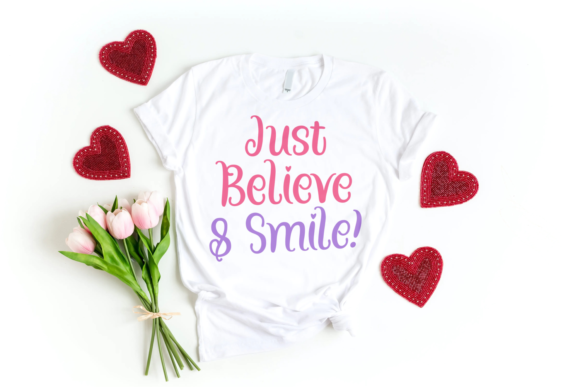
About Hello Sweet Girls Font
Hello Sweet Girls is a delightful and charming handwritten font that radiates warmth, playfulness, and a touch of romance. With its versatile and flexible nature, this font is a perfect choice to bring a joyful and artistic vibe to your various design projects.
The font’s rounded and friendly letterforms embody a sense of approachability and cheerfulness. Its smooth curves and balanced proportions give it a balanced and harmonious appearance, making it suitable for a wide range of creative applications.
Hello Sweet Girls’ inherent sweetness and versatility make it an ideal candidate for a variety of design projects. Whether you’re crafting greeting cards, designing invitations, creating social media graphics, or working on any other creative endeavor, this font will infuse your designs with a sense of joy and whimsy.
The font’s flexibility allows you to explore a multitude of design possibilities. From bold and vibrant to subtle and elegant, Hello Sweet Girls can adapt to different visual styles and themes. Its ability to convey both a playful and romantic mood opens up opportunities for experimenting with various typographic treatments and color palettes.
Hello Sweet Girls’ handwritten charm can add a personalized and authentic touch to your projects. The font’s inherent joviality and warmth make it particularly well-suited for designs targeted at a youthful or fun-loving audience. Its ability to evoke emotions and create a connection with viewers adds depth and character to your creations.
The rounded and smooth letterforms of Hello Sweet Girls contribute to its readability and legibility, ensuring that your message comes across clearly. Whether used for headlines, captions, or body text, the font maintains its inviting and cheerful demeanor, enhancing the overall visual experience.
Incorporating Hello Sweet Girls into your designs can lead to delightful and engaging results. Its playful nature encourages creativity and exploration, allowing you to experiment with different layouts, sizes, and styles. As you explore its endless variations, you’ll discover how this font can transform your project ideas into captivating works of art that resonate with your audience.
Overall, Hello Sweet Girls’ all-round and flexible handwritten style, coupled with its warm, romantic, and jolly character, make it a fantastic choice for infusing your designs with creativity and vibrancy. Embrace the font’s playful spirit, and embark on a journey of design possibilities that capture the essence of joy and artistry.